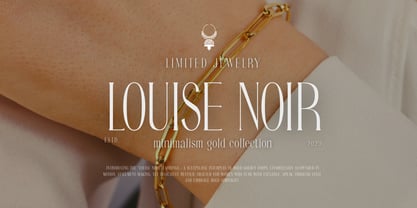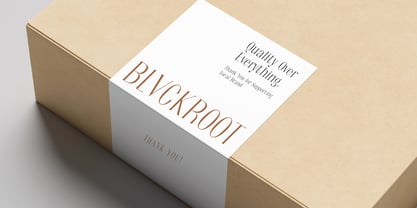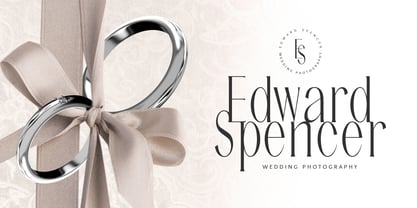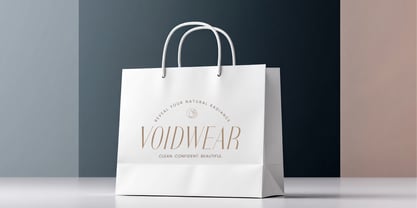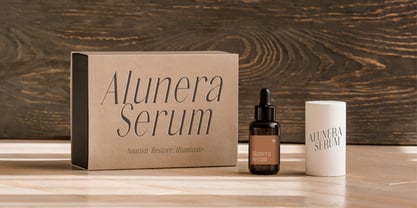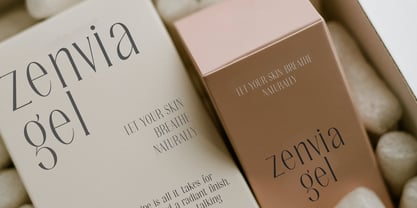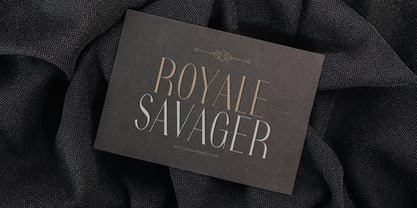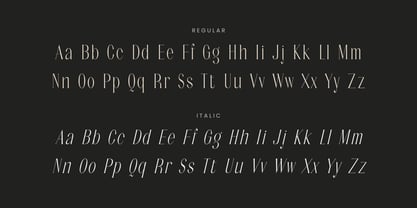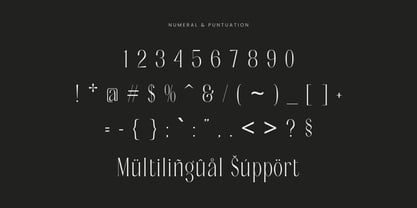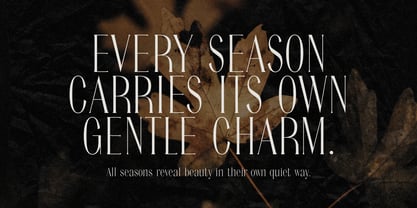
Noctaire
La familia tipográfica Noctaire fue diseñada por Muhamad Yusron Billah y publicada por Sronstudio. Noctaire contiene 2 estilos y opciones de paquete familiar. Más información sobre esta familia
Noctaire is a modern serif font that blends elegant structure with a contemporary edge. Featuring sharp details and balanced proportions, this font delivers a clean yet sophisticated look. Perfect for branding, editorial design, logos, magazines, and luxury projects, Noctaire adds a refined and timeless character to any modern typography. What’s Included: - Alternates & ligatures - Numerals & punctuation - PUA encoded for easy access - Multilingual support - Works seamlessly on Mac & Windows Thank you very much